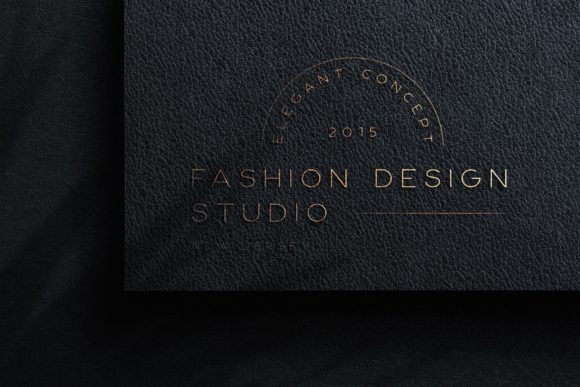
Brown Austin Font
Brown Austin is a distinct, elegant sans serif font that blends traditional influences into a contemporary aesthetic. It will look particularly adept when used in logos, branding, packaging design, and much more.